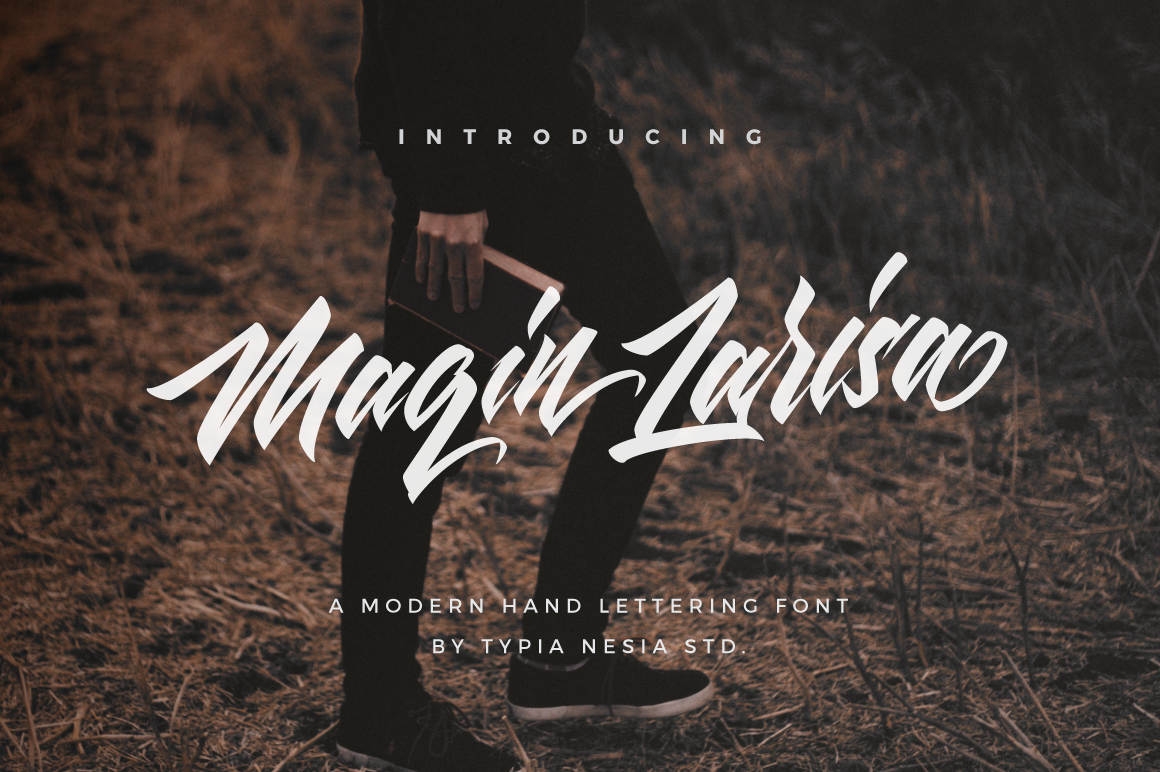
Maqin Larisa - Logo Font
Maqin Larisa is the ULTIMATE lettering logo font pack. The Regular font combines with the alternate character font to make each word unique. Then add the Display font as your tagline and BOOM - The ideal logo !
- Maqin Larisa Display (.ttf & .otf) : Allcaps Typeface, perfectly combine with Maqin Larisa Script to create cool - typography or logo design.